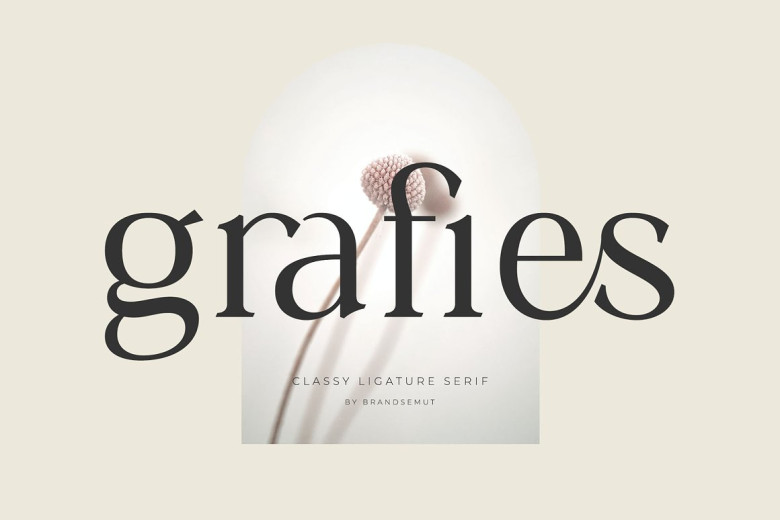
Grafies Font
Grafies is a modern serif typeface created by BrandSemut with a unique ligature style, a high contrast and light font perfect for feminine logo signs, fashion heads editorial designs, branding projects, Clothing Branding, packaging, magazine heading, advertising, T-shirts, postcards and much more.
Grafies Serif Font